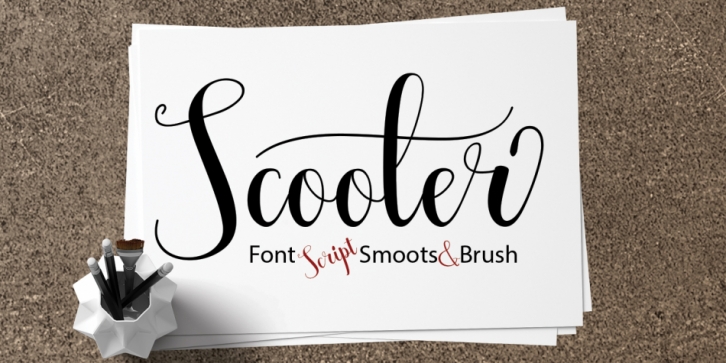
Scooter is a modern calligraphy font family. This typeface has two styles and was published by RtCreative.
This font was designed by handwriting, and it has a modern and unique forms of calligraphy, the writing style is very natural.